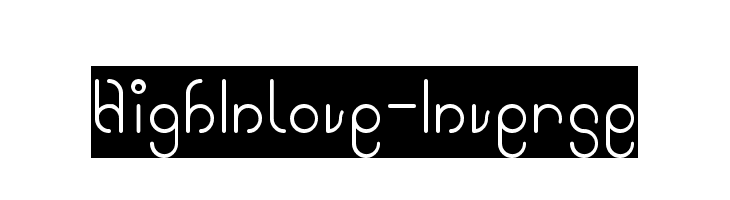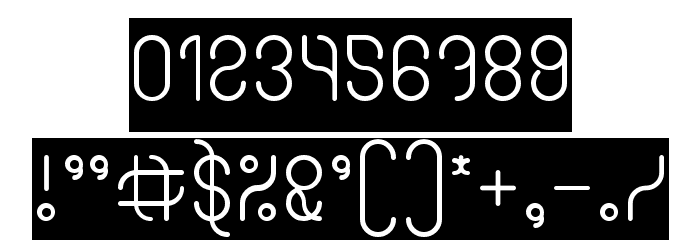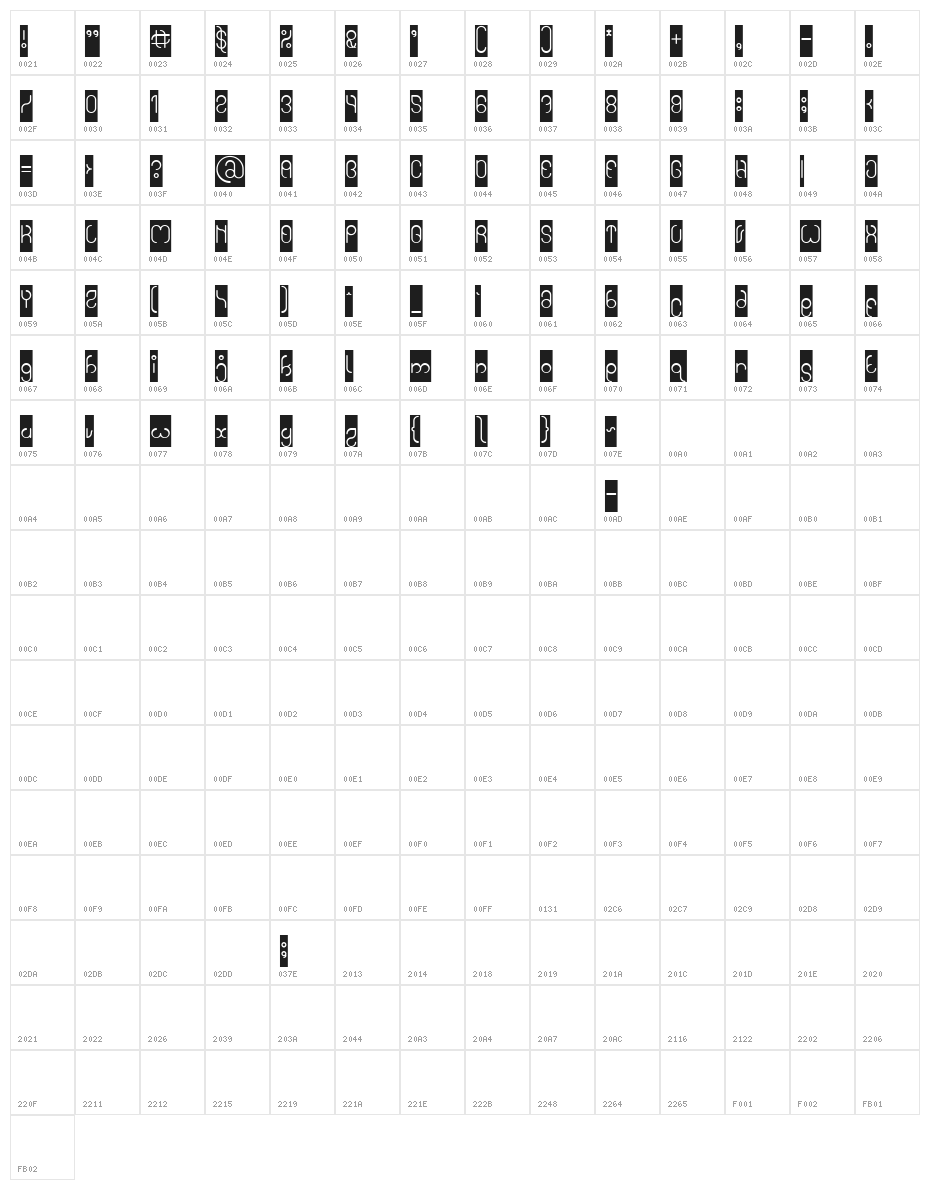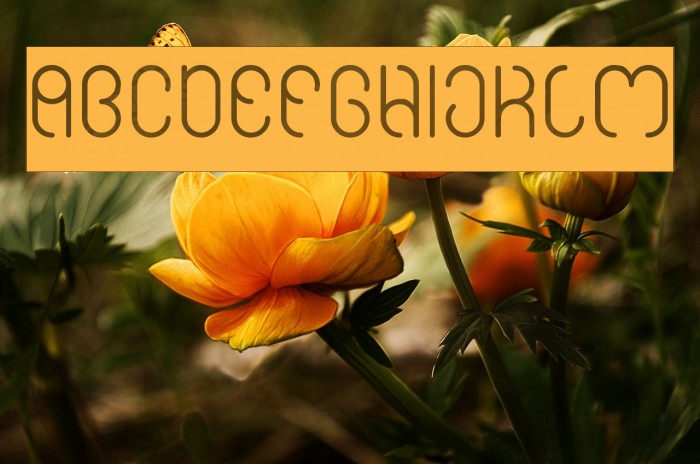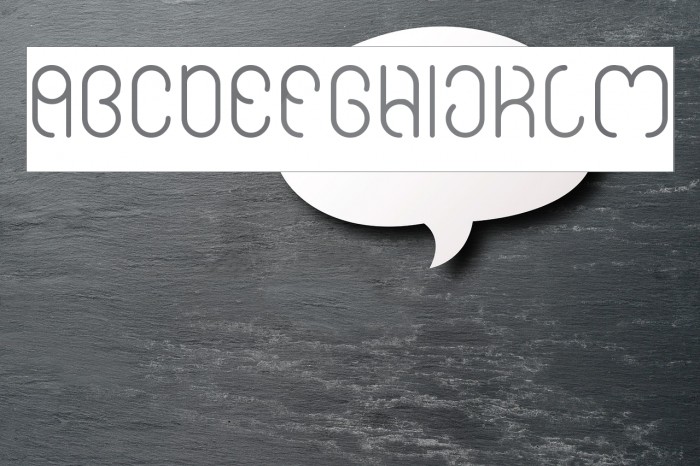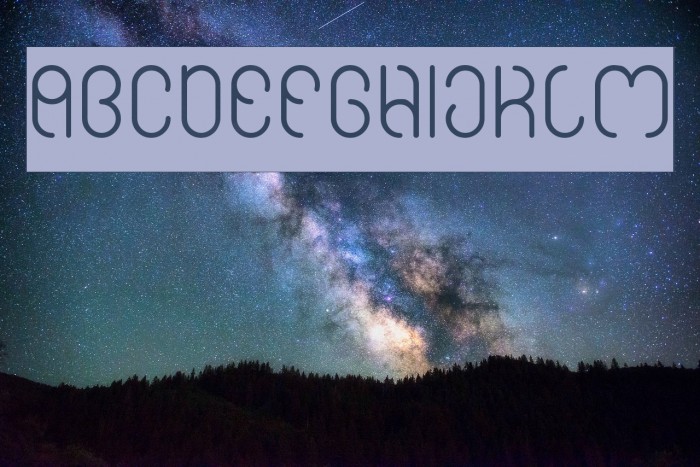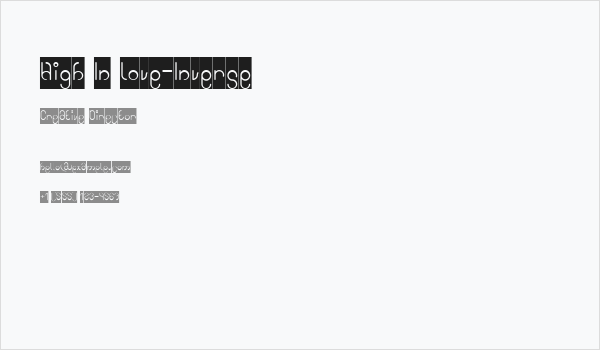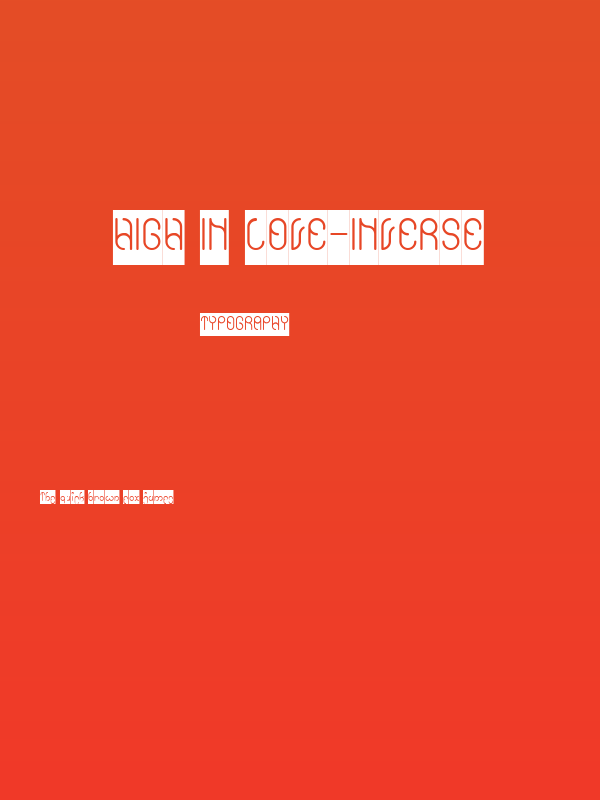
High In love-Inverse Font
High In love-Inverse Description
This font features a unique and artistic design with a modern twist. Each character is crafted with a continuous line that loops and curves, creating a sense of fluidity and movement. The uppercase letters are bold and striking, while the lowercase letters maintain a playful and whimsical style. Numbers and special characters follow the same design principles, ensuring consistency throughout. The overall look is both contemporary and decorative, making it suitable for creative projects that require a distinctive and eye-catching typeface.
| Proposed Projects | Ideal for branding, posters, invitations, and any project that benefits from a unique and artistic typeface. |